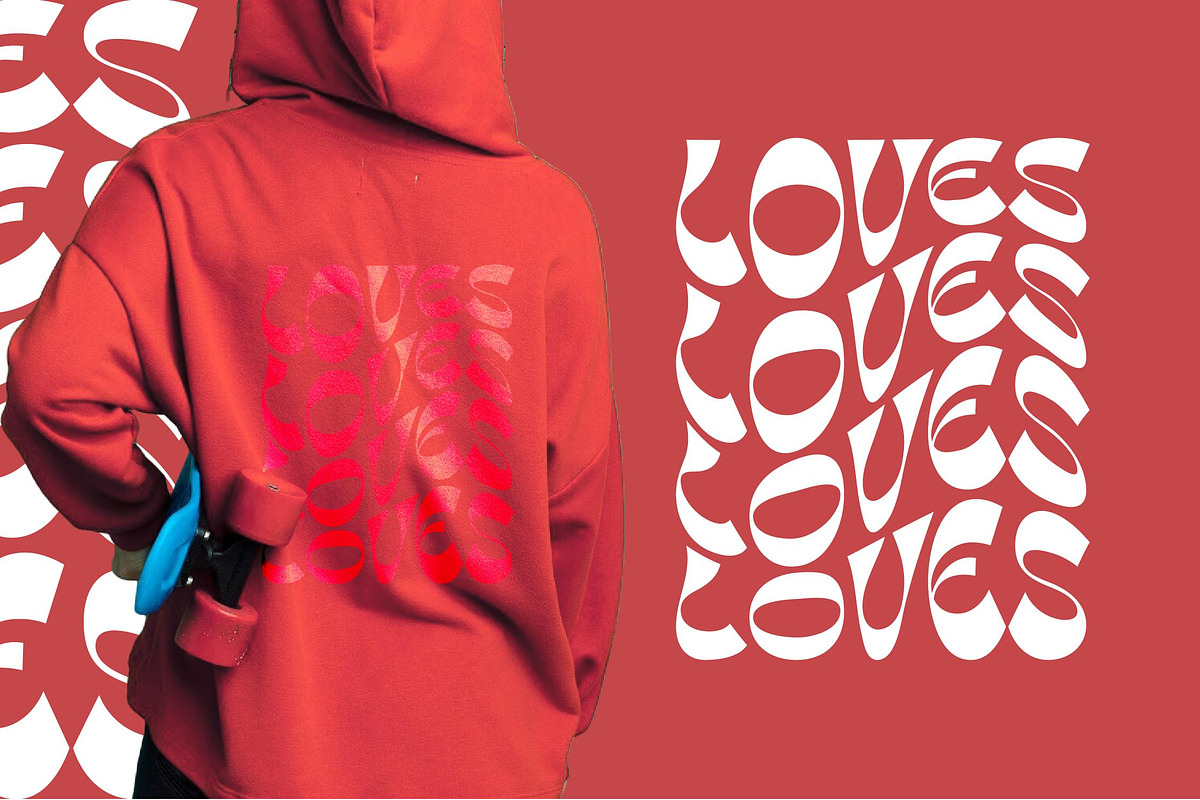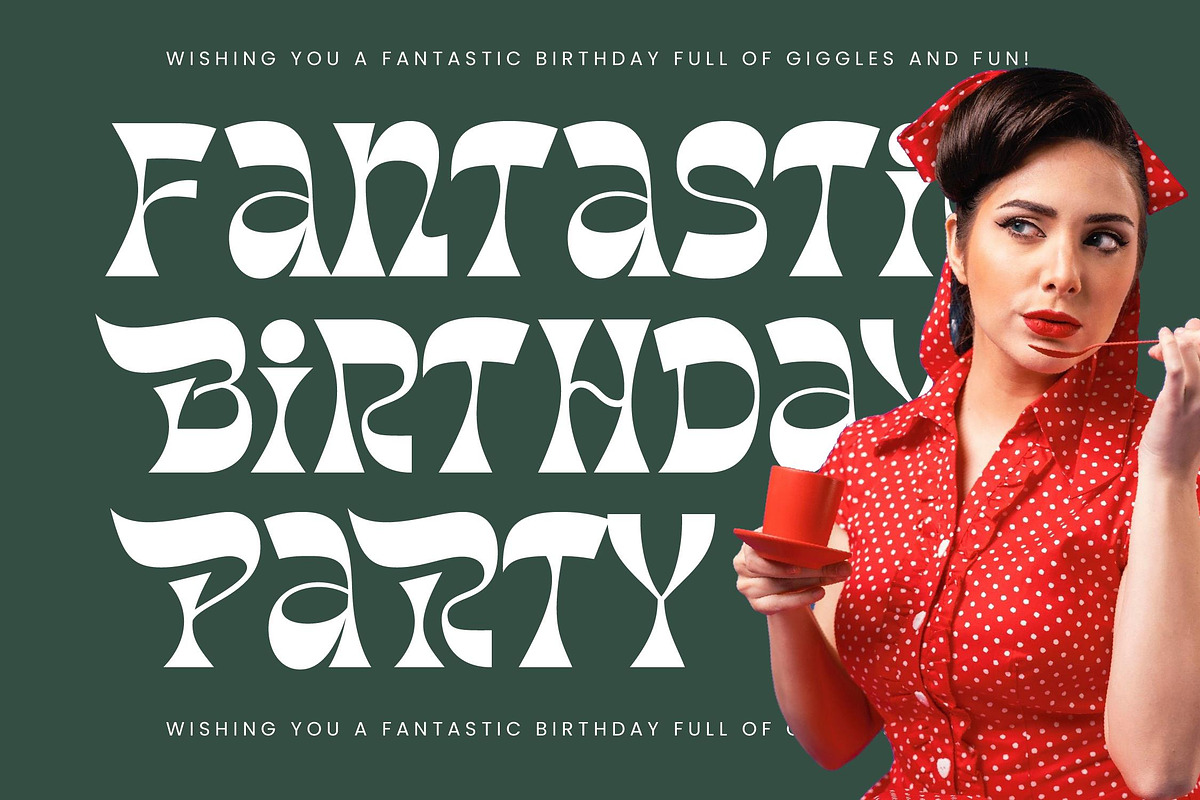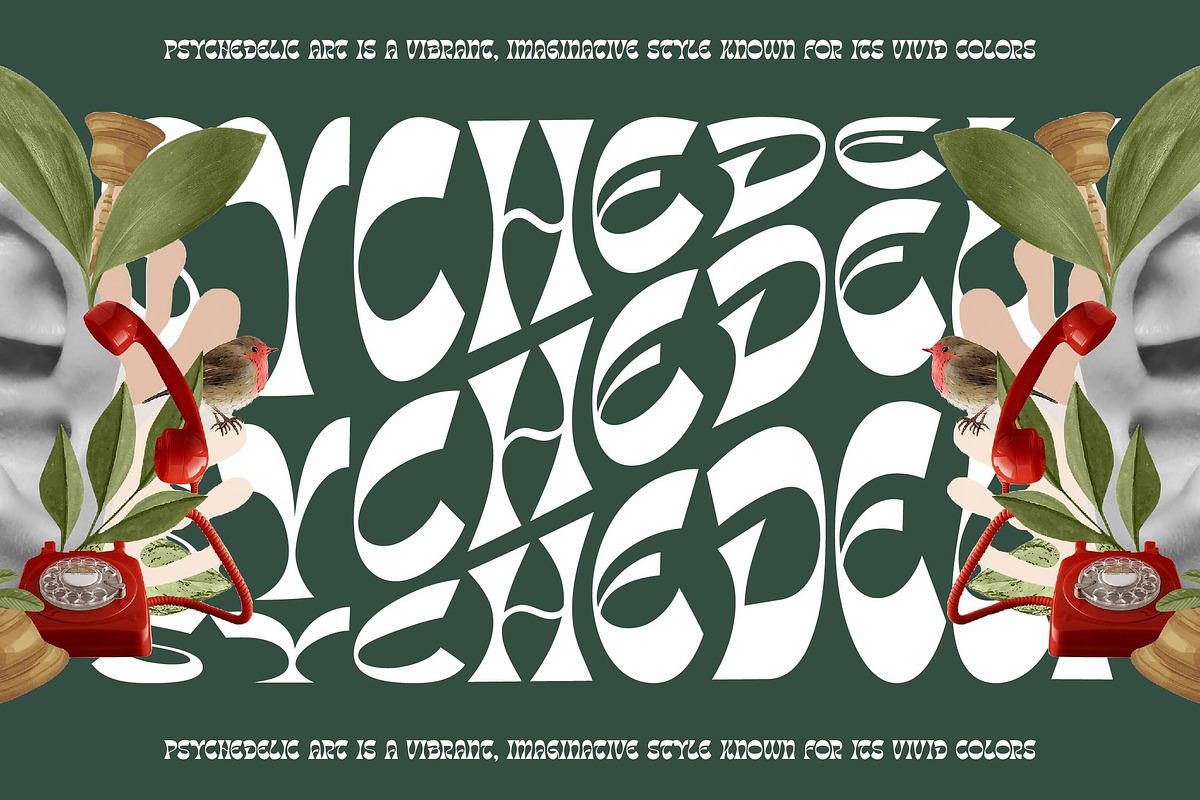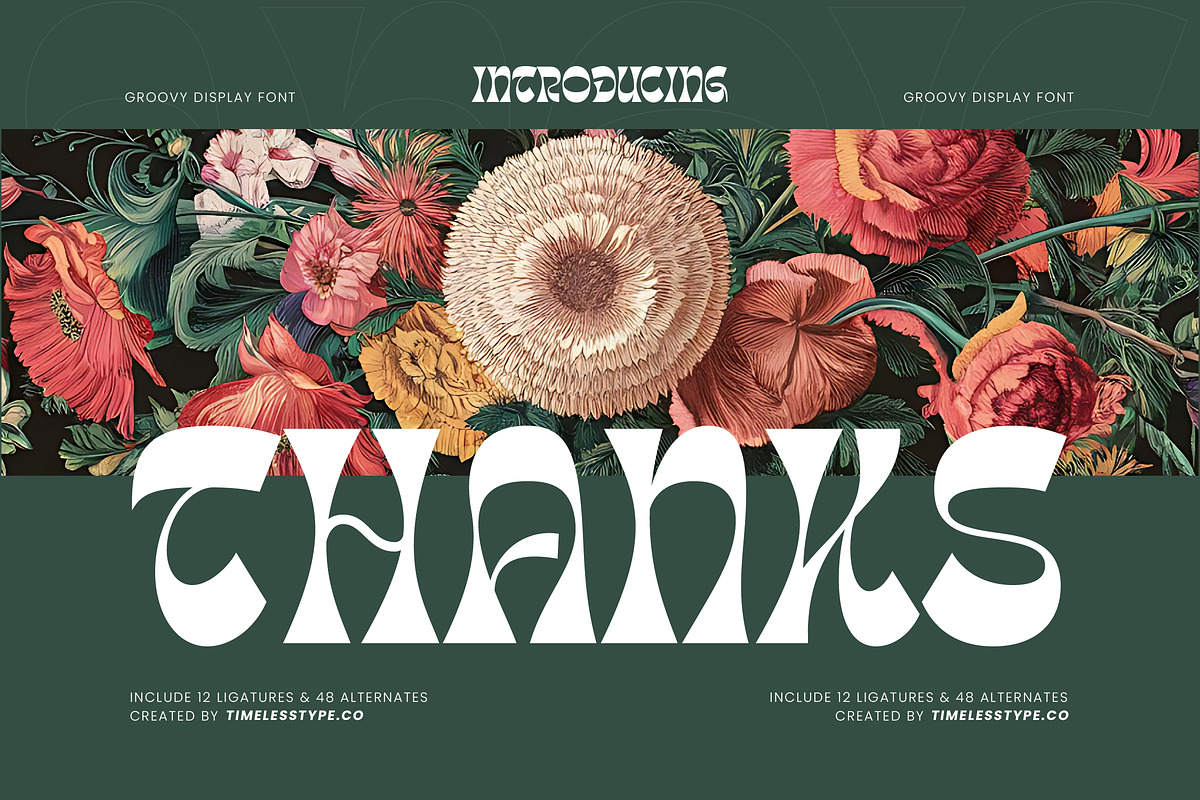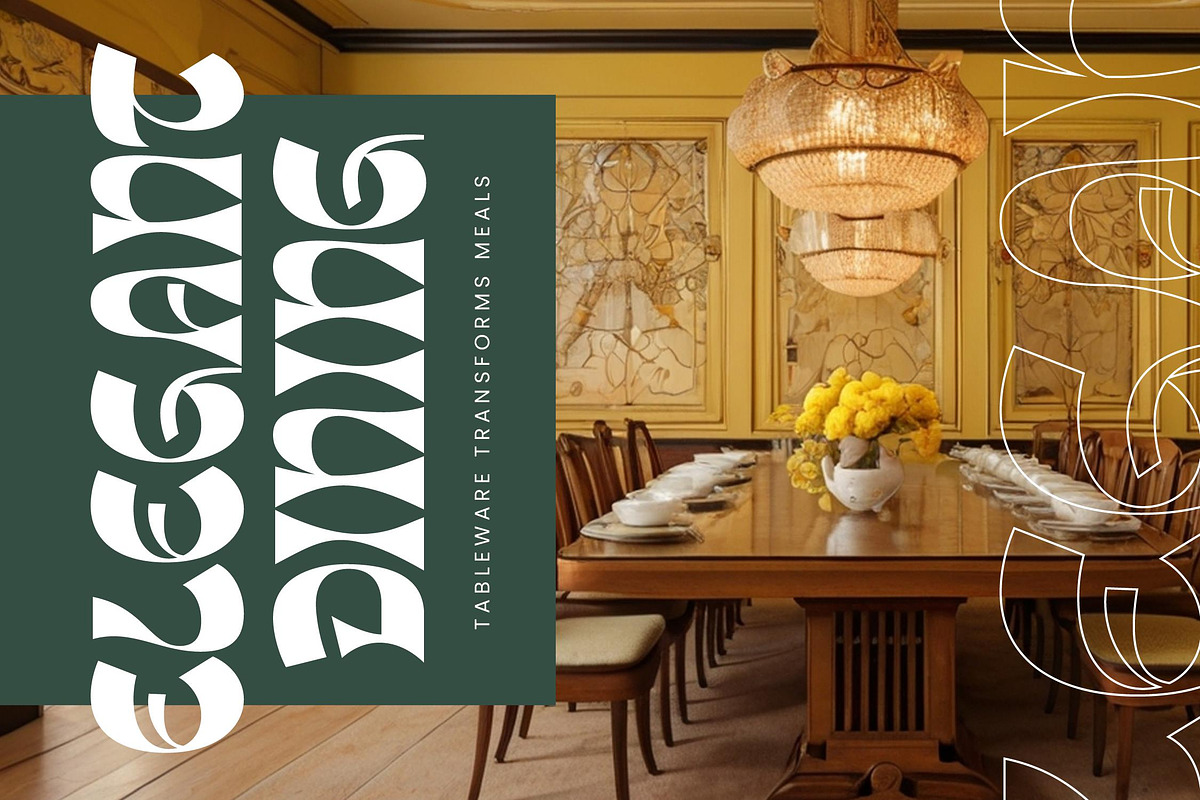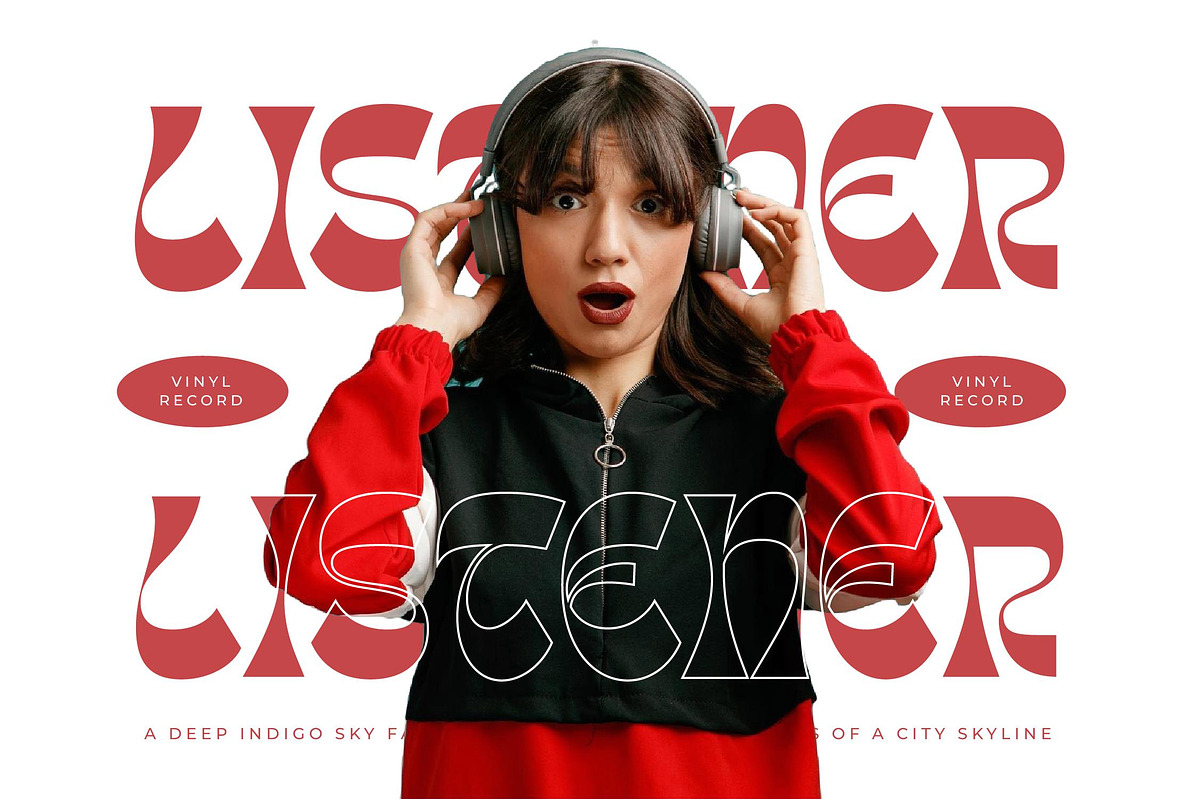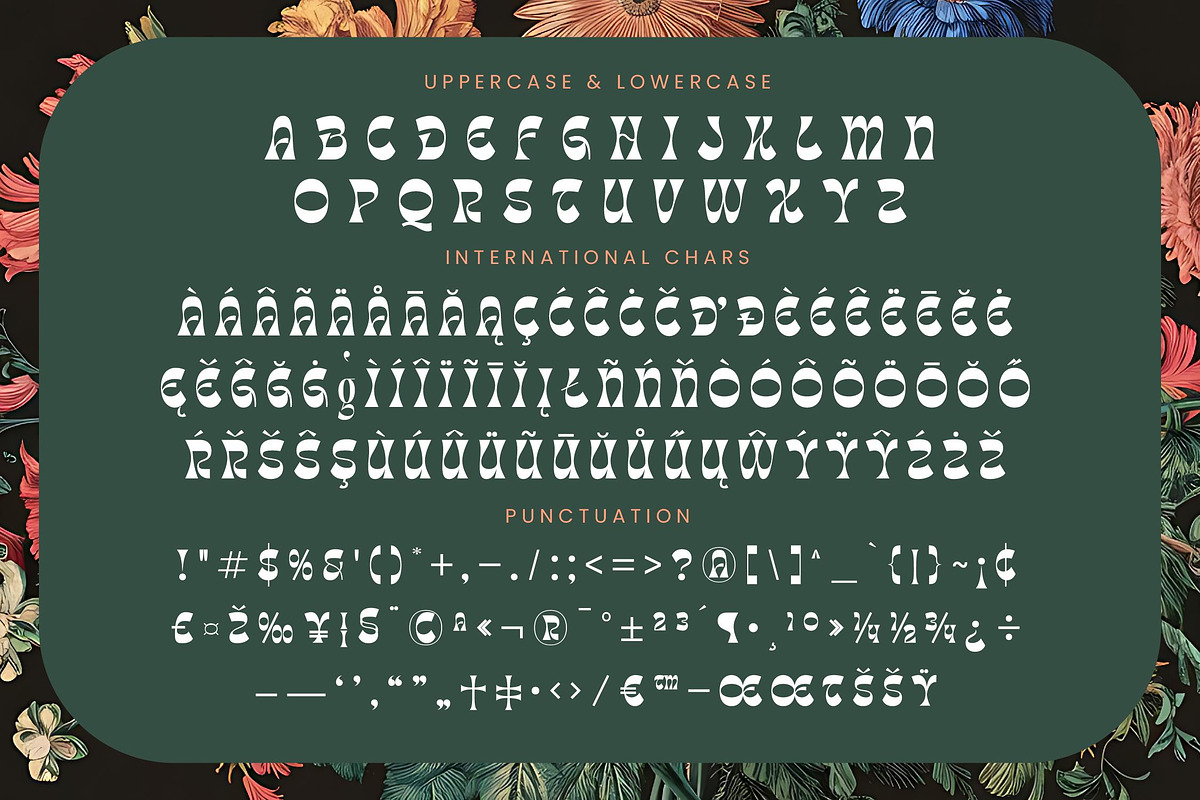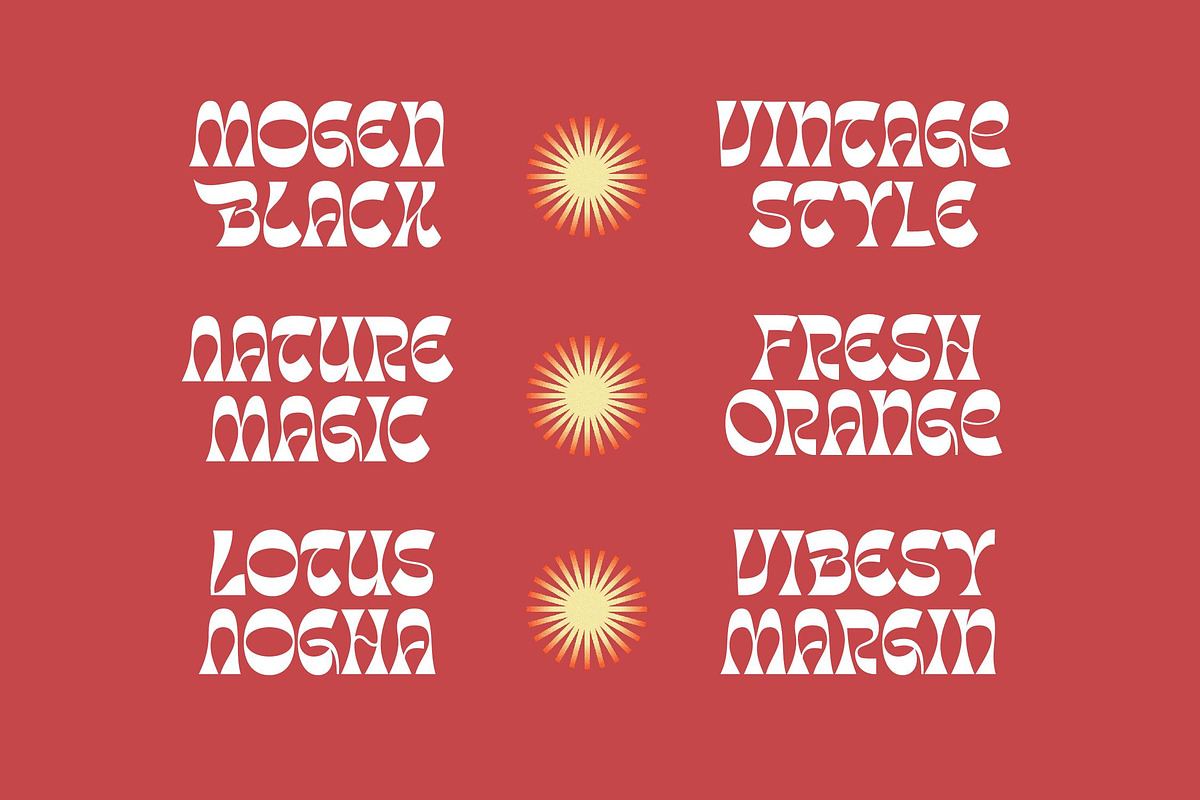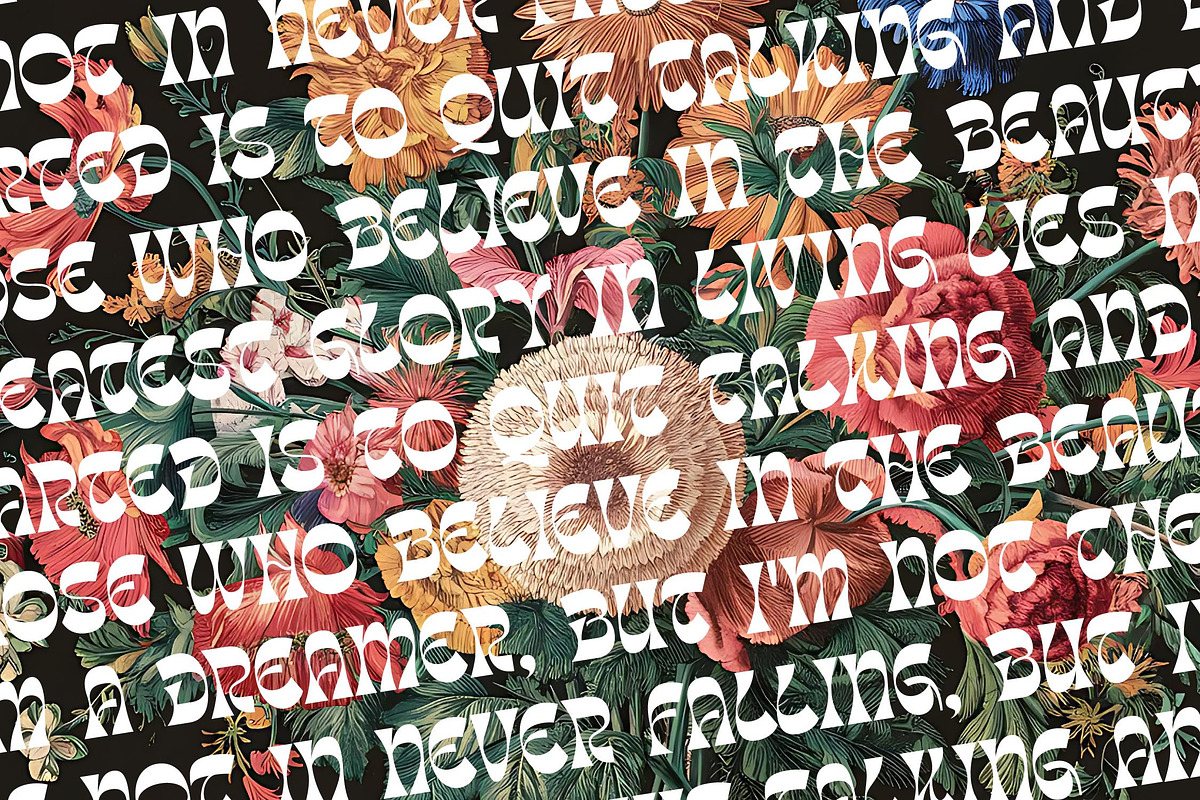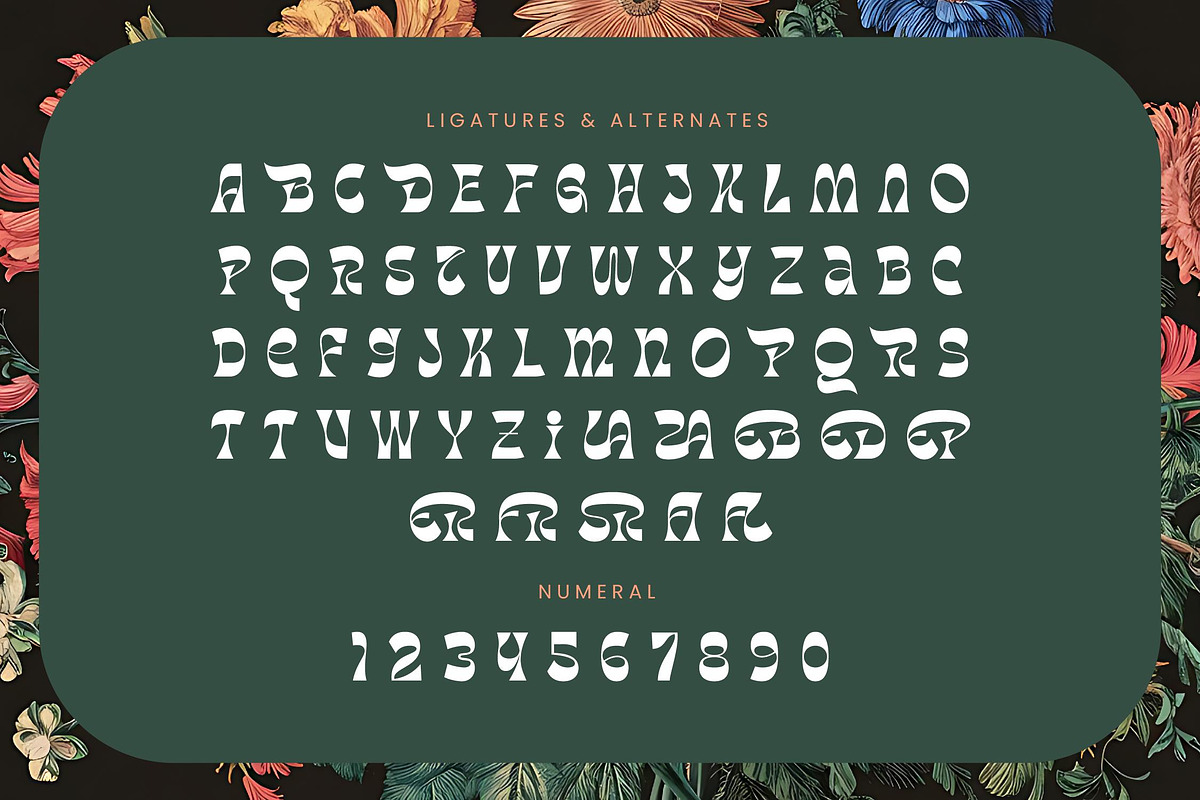
Tanqier Groovy Display Font
Step into a world where typography breathes with fluid motion and artistic flair, embodied perfectly by the captivating Tanqier. This font is not just a collection of letters; it is a visual experience designed to command attention and evoke deep nostalgia.
Drawing inspiration from the vibrant spirit of 1970s psychedelic posters and the organic curves of botanical illustrations, this typeface captures a timeless groove. It reflects the fusion of vintage art nouveau elegance with the bold, experimental energy of mid-century display design.
With its mesmerizing wavy forms and thick-to-thin transitions, this modern serif display delivers a powerful branding impact. Every character is a piece of luxury typography that functions as a high-contrast serif, making it an essential editorial font for designers who crave personality over uniformity.
Perfectly aligned with the current modern serif trend, this typeface answers the call for more character-driven typography in a sea of minimalist designs. As editorial display fonts continue to dominate high-end visual culture, this asset provides the unique edge needed to stand out in today's saturated market.
This versatile typeface is the ideal choice for high-end logo design and comprehensive branding projects that require a signature look. Whether it is applied to sophisticated packaging, a bold fashion campaign, a boutique wedding invitation, or avant-garde editorial layouts, it ensures your message is unforgettable.
To provide maximum creative flexibility, the package includes a vast library of ligatures and alternates that allow for custom letter combinations. It also features a full set of international characters and multilingual support, ensuring that your creative vision translates beautifully across global boundaries.
- Ligature 12 Alternate 48